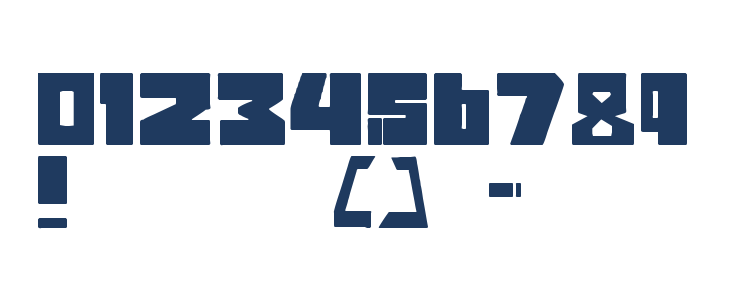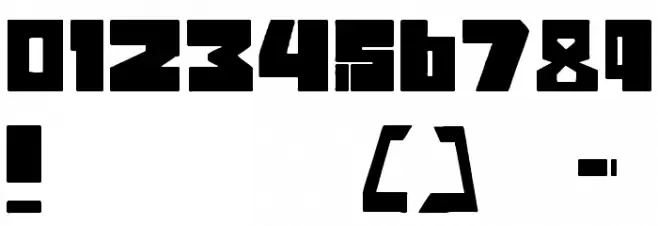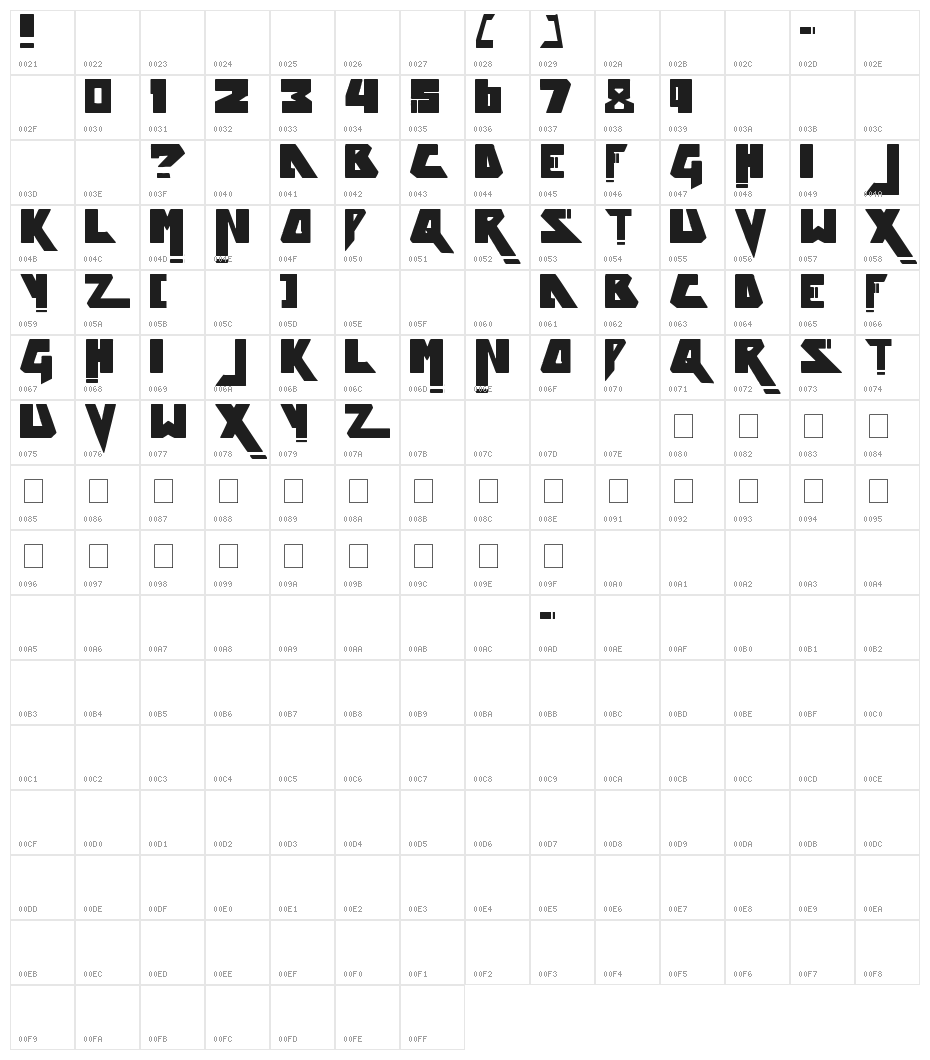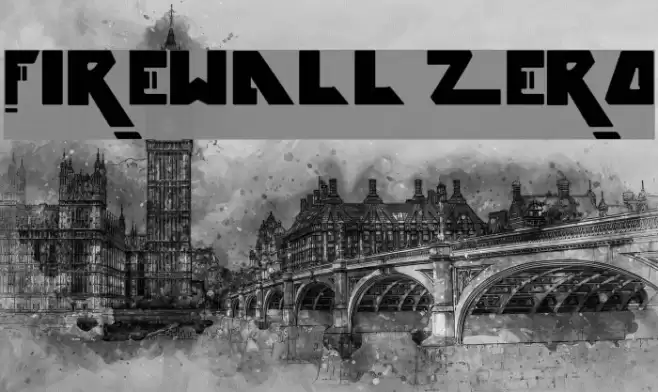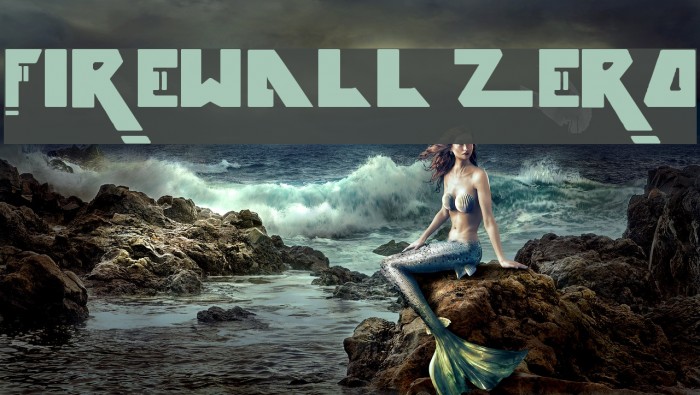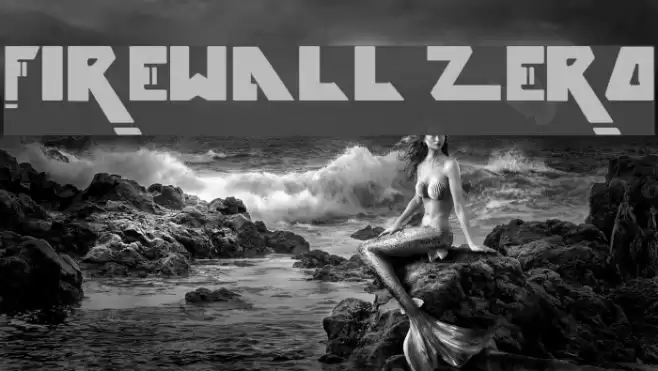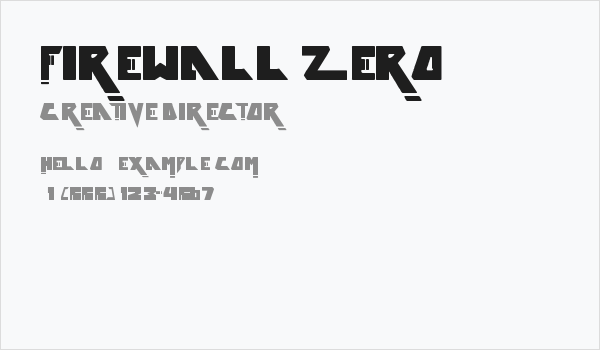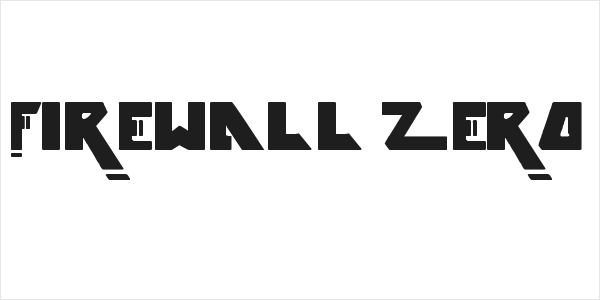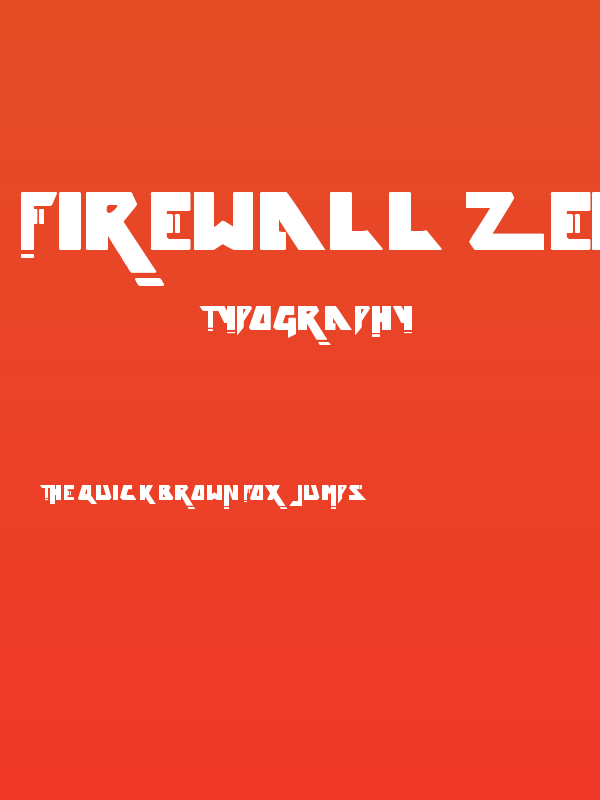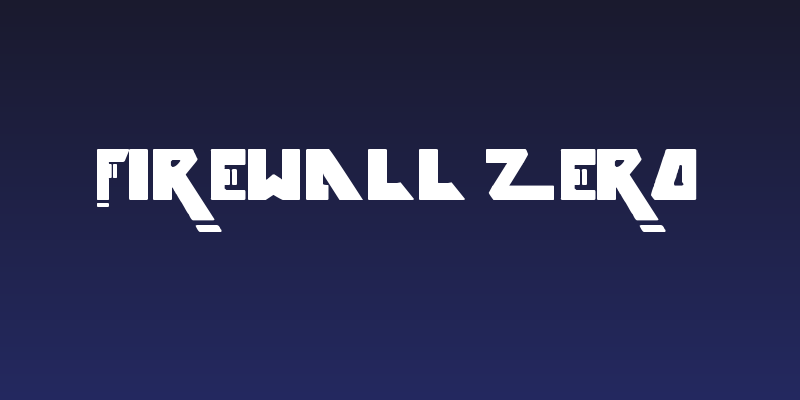
Firewall zero Font
Firewall zero Description
This font features a bold, angular design with a futuristic and geometric aesthetic. The characters are constructed with sharp edges and a blocky structure, giving them a strong and impactful presence. The uppercase letters are particularly striking, with unique cuts and angles that create a sense of movement and energy. The numbers and special characters maintain this bold style, ensuring consistency across all glyphs. The font's design is reminiscent of digital or sci-fi themes, making it ideal for projects that require a modern and edgy look.
| Proposed Projects | Ideal for sci-fi themed posters, video game titles, tech branding, and digital media. |